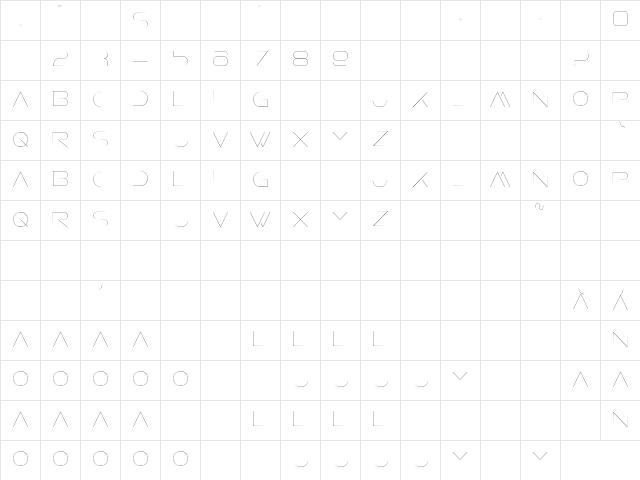
Faxine Sky Regular
| Foundry | Font Monger |
| Designer | Chris Vile |
Design Context for Faxine Sky Typeface
Faxine Sky offers clean, dependable letterforms without strong stylistic allegiance, making it a practical choice for designers who need flexibility.